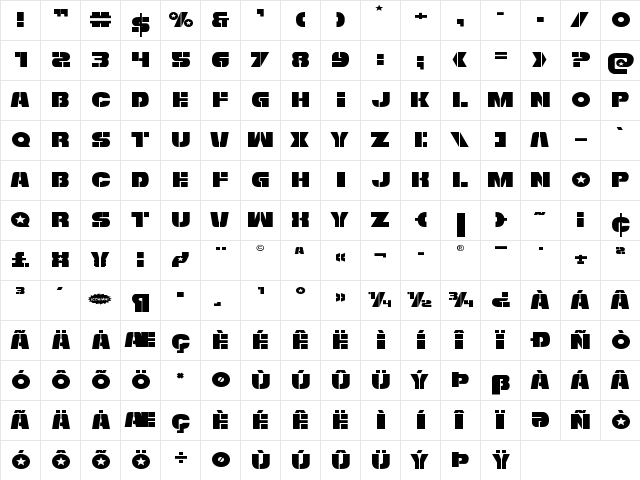
Freedom Fighter Expanded Expanded
Design Context for Freedom Fighter Expanded Typeface
Freedom Fighter Expanded is a composed and adaptable typeface that performs quietly and consistently across a wide range of design contexts.
Pro Tip: Use Freedom Fighter Expanded in both headline and body roles to test its range before committing to a single application.